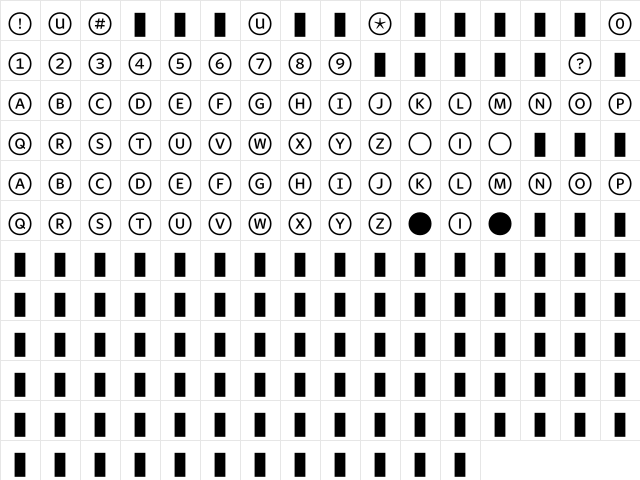
WhitneyIndexWhite RoundMd
Design Context for WhitneyIndexWhite Typeface
WhitneyIndexWhite softens its letterforms with rounded terminals, giving it an approachable, friendly quality that works well in consumer-facing and digital contexts.
Well-suited to UI design, mobile interfaces, and any brand that wants approachability without sacrificing clarity.
Font Pairing: Pairs well with a rounded or humanist sans for body copy, maintaining the friendly tone without relying on WhitneyIndexWhite to carry extended reading.
Pro Tip: Use WhitneyIndexWhite for UI elements, app interfaces, and anywhere a friendly, approachable tone needs to be maintained without sacrificing clarity.